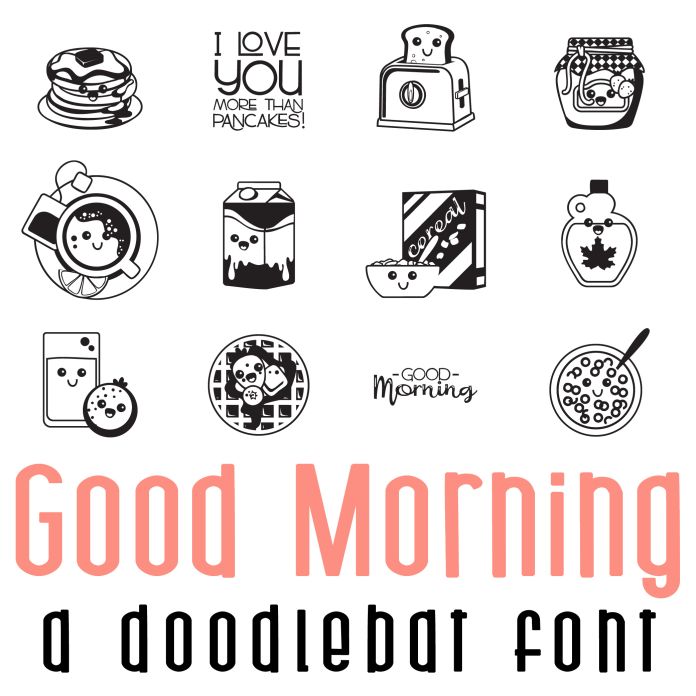
This fun doodlebat font features 26 kawaii style breakfast food perfect for cards, crafts, gifts, planner stickers, scrap book pages, classrooms and more!